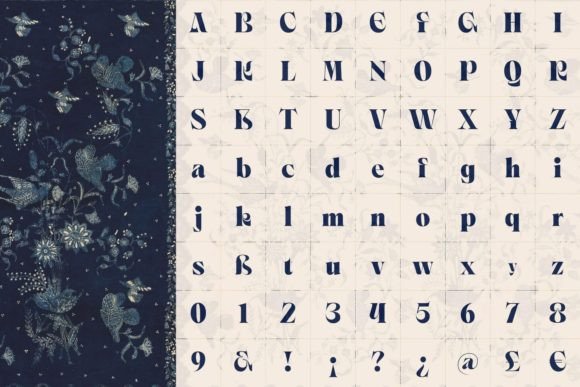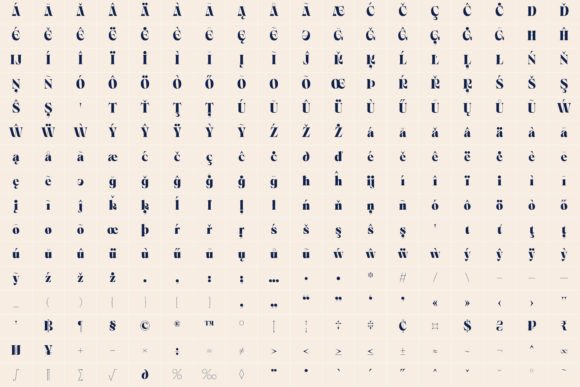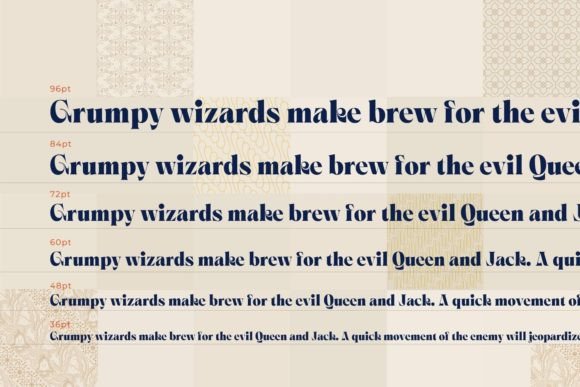
Introduction to Ornable Font
Meet Ornable Typeface, your font of choice for a captivating blend of Renaissance, Art Nouveau, Medieval, and Art Deco vibes.
This single-weight typeface is designed for those seeking a font that embodies a rich tapestry of artistic nuances With 35 meticulously crafted ligatures, Ornable ensures your text is not just seen but experienced.
Key Features of Ornable Font